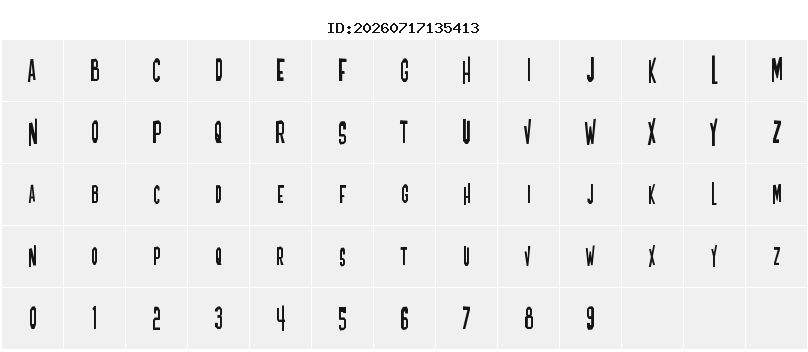
• Font Name: Blofeld
• Designer: Neale Davidson
About Blofeld.otf
Blofeld.otf is a modern, elegant sans-serif font designed for ultimate readability and visual harmony. Perfect for branding, headlines, web design, and print materials.